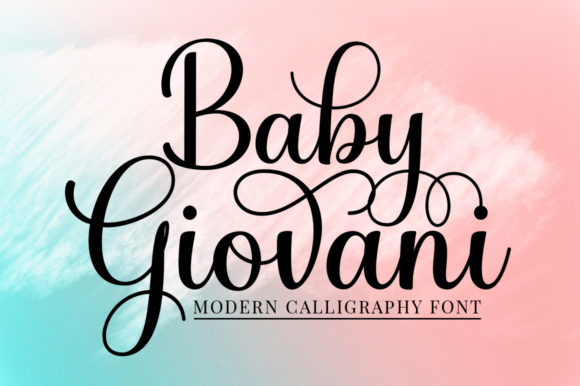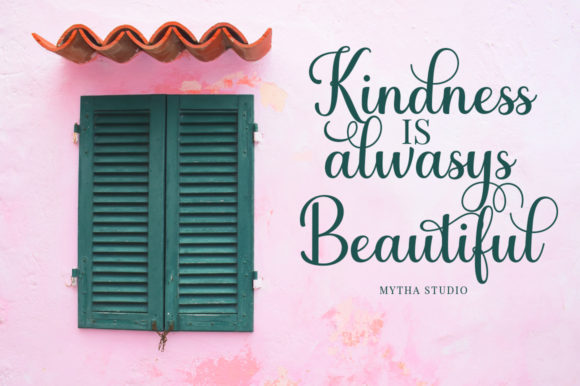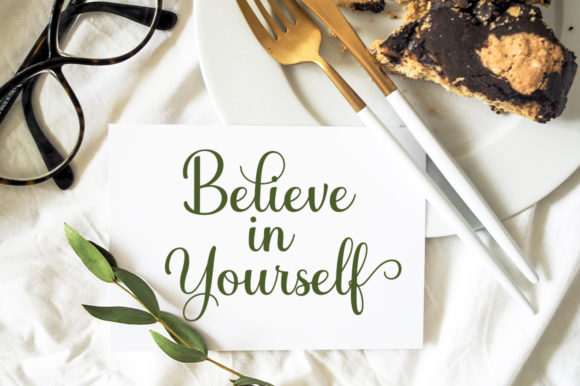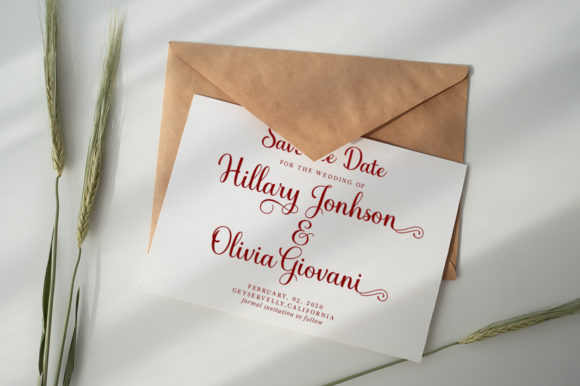
Baby Giovani Script Font
About the Baby Giovani Script Font
Add a touch of class to your work with the Baby Giovani Script Font, a truly exceptional typeface. Baby Giovani is a chic, refined script font that emanates sophistication and elegance. It’s stylish alternates and ligatures make this incredibly feature rich font the perfect match for any project.
Baby Giovani’s elegant, flowing forms make it ideal for headlines, logos, and short text segments in branding materials, invitations, or packaging design where sophistication is key. Its refined character, however, isn’t suited to body text or lengthy paragraphs; the intricate details can become visually overwhelming in larger blocks of text. Avoid using it for UI elements where legibility is paramount.
Pair Baby Giovani with a clean sans-serif like Montserrat or Lato for a modern contrast, or a classic serif such as Garamond or Playfair Display for a more traditional, luxurious feel. These pairings provide strong visual balance, allowing Baby Giovani’s script to shine without overpowering the design.
Its overall personality is sophisticated and refined, lending itself to brands that wish to project a sense of high-end quality and understated luxury.
Baby Giovani Script Font Usage Examples
Baby Giovani Script Font Example